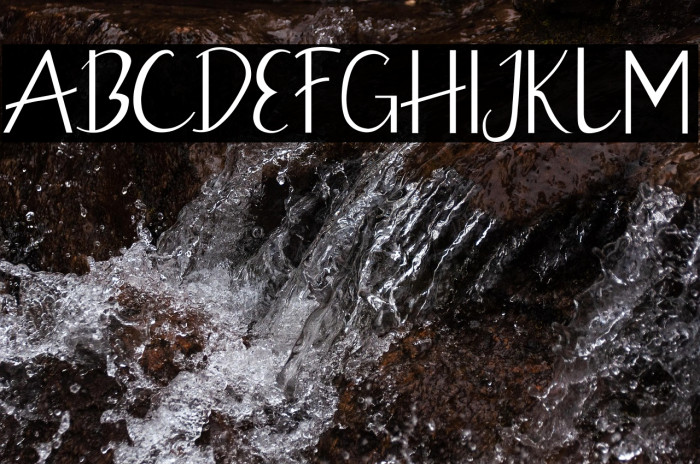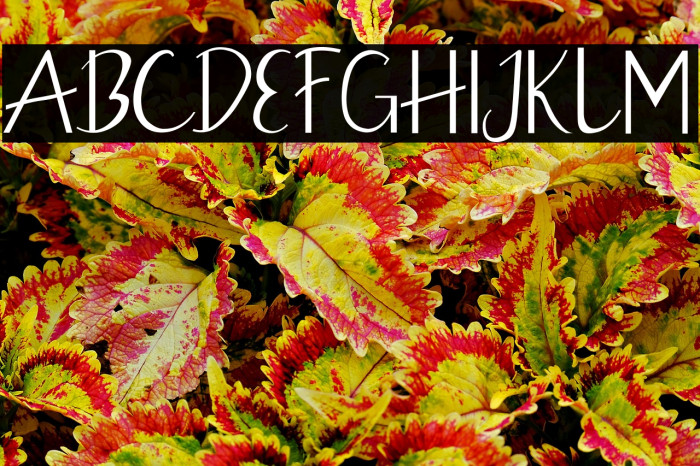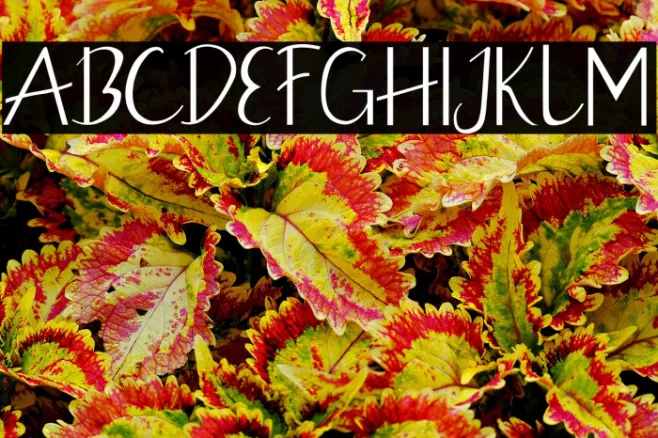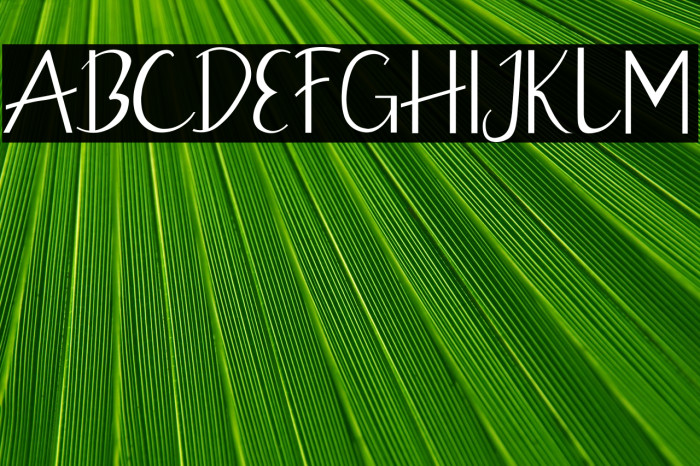
Billbo Font
Billbo Description
This font features a unique blend of elegance and playfulness, characterized by its flowing, cursive-like strokes and distinctively sharp serifs. The uppercase letters exhibit a graceful yet bold presence, with elongated lines and subtle curves that add a touch of sophistication. The lowercase letters maintain a consistent style, with smooth, flowing connections that enhance readability. The numerals and special characters are designed to complement the overall aesthetic, featuring similar curves and lines that ensure a cohesive look. This font's artistic flair makes it suitable for creative projects that require a touch of elegance and personality.
| Proposed Projects | Ideal for wedding invitations, greeting cards, branding, and artistic posters. |